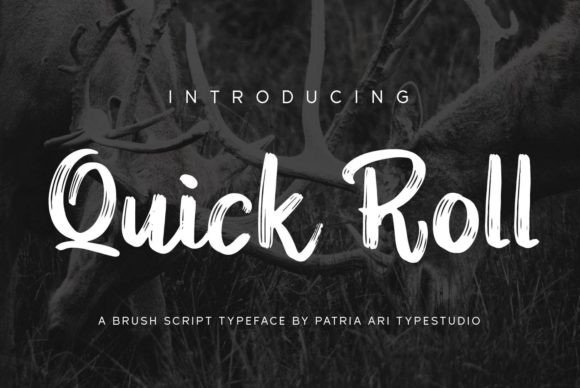
Introducing Quick Roll, the captivating handwritten font that will transform your designs into extraordinary masterpieces. Its unique brushed and well-rounded strokes exude an irresistible, handcrafted charm that will captivate your audience.
Unleash your creativity with Quick Roll, the perfect font for all your crafty endeavors. Let the flowing curves and graceful lines dance across your wedding invitations, giving them a touch of timeless elegance. Create heartfelt birthday cards that convey your love and warmth with every stroke.
Elevate your personal branding with Quick Roll, making your logo an unforgettable symbol that reflects your unique style. Design elegant logos that will leave a lasting impression, captivating your target audience with their sophistication and charm.
Quick Roll is more than just a font; it's an invitation to express your creativity in countless ways. Whether you're crafting a heartfelt message, designing a captivating logo, or creating stunning social media graphics, Quick Roll empowers you to make your designs shine.
Embrace the artistry of Quick Roll and let your designs speak volumes. Experience the joy of creating with a font that combines authenticity and elegance, making every project a masterpiece. Download Quick Roll today and let your creativity soar to new heights!